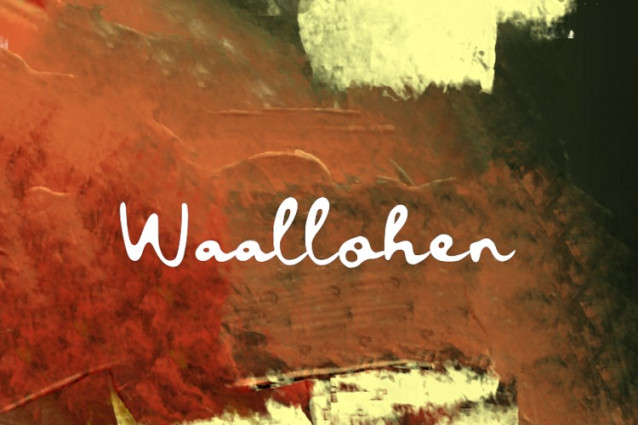
Waallohen Script Font
Waallohen Script Font, suitable for any design needs : logo, branding, modern advertising design, logos, poster quote, book / cover Title, editorial design, website / blog, card, t-shirts, and any hand-lettered needs.